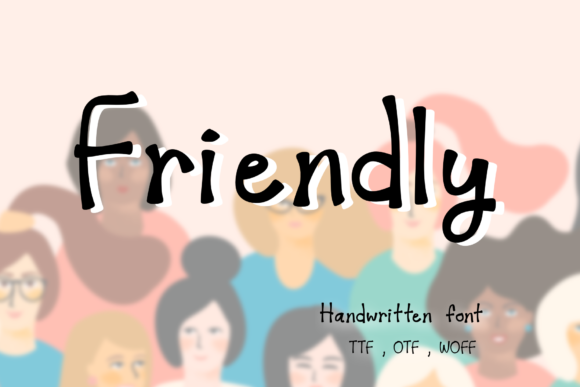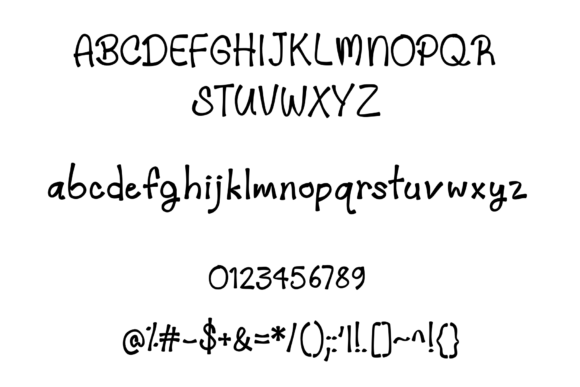
About Friendly Font
Friendly is a cute and unique handwritten font. Trendy and friendly, this font will turn any creative idea into a true piece of art!